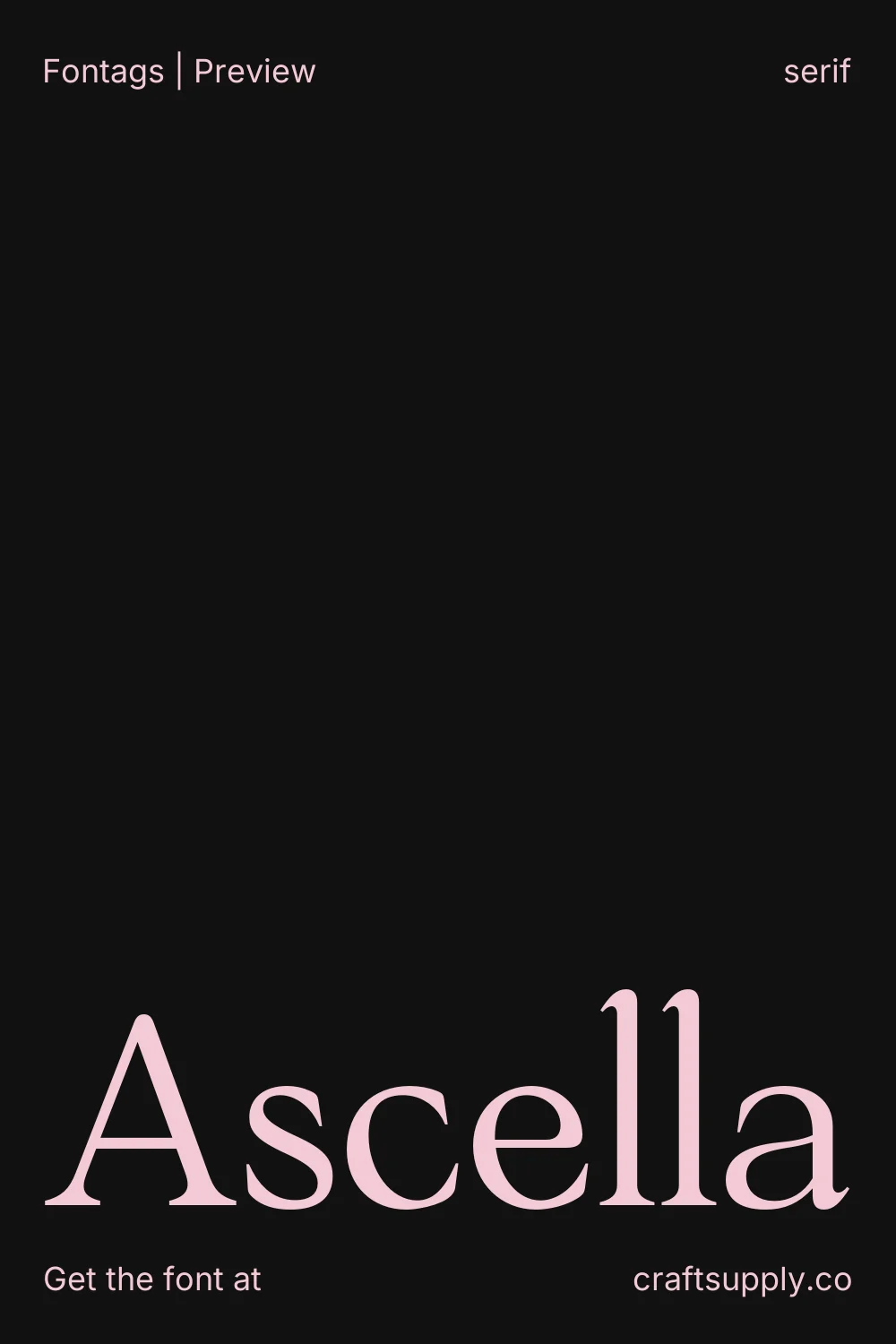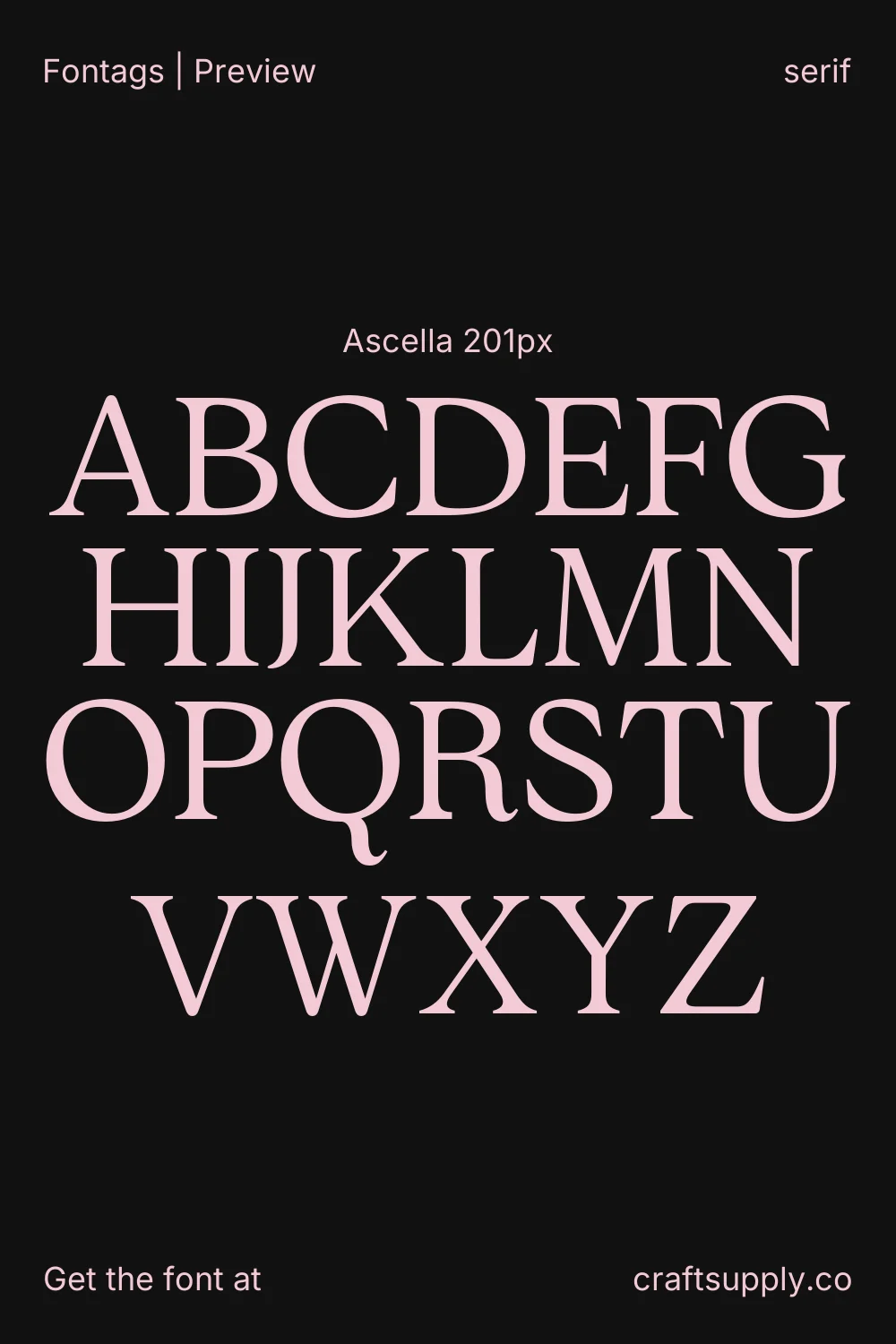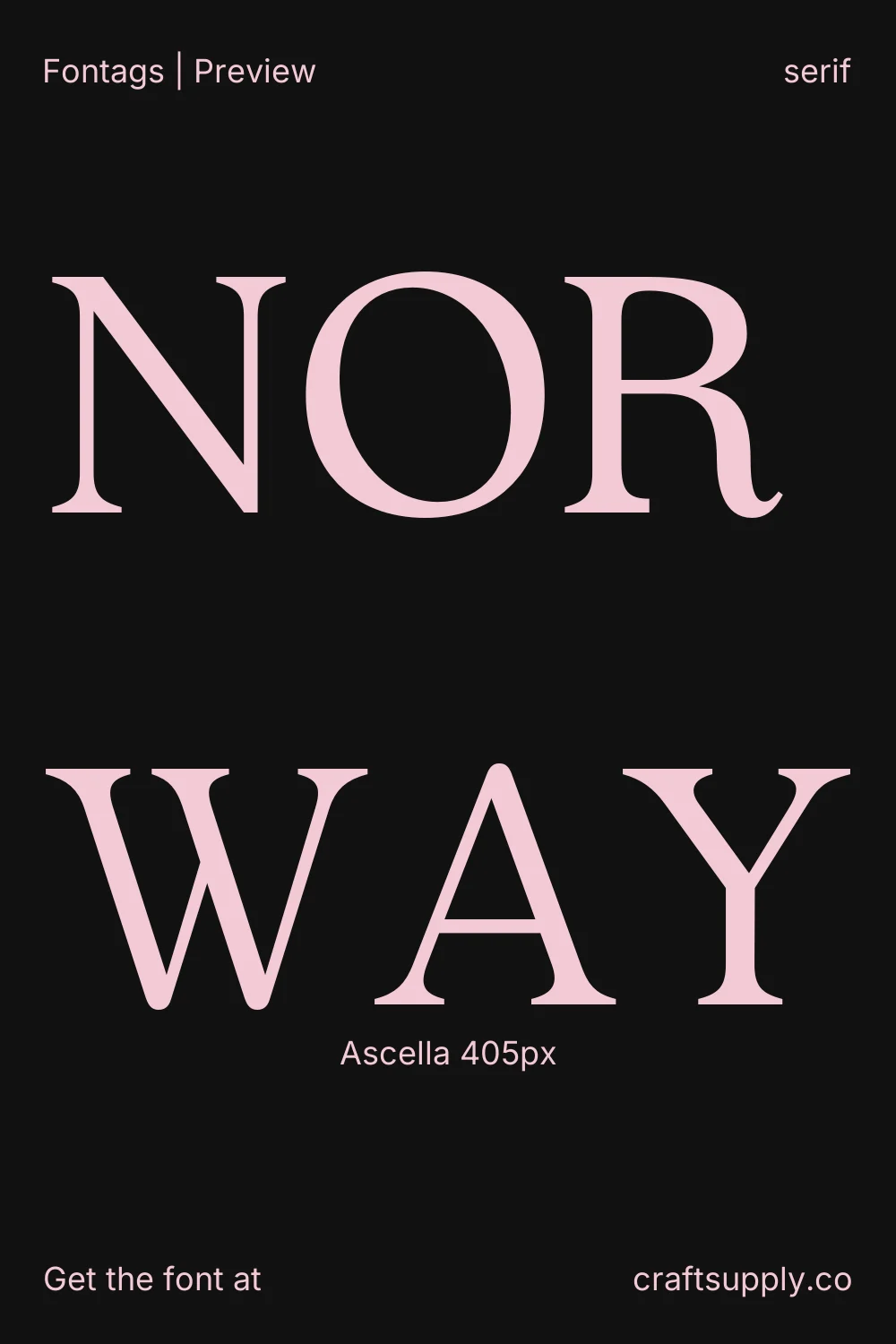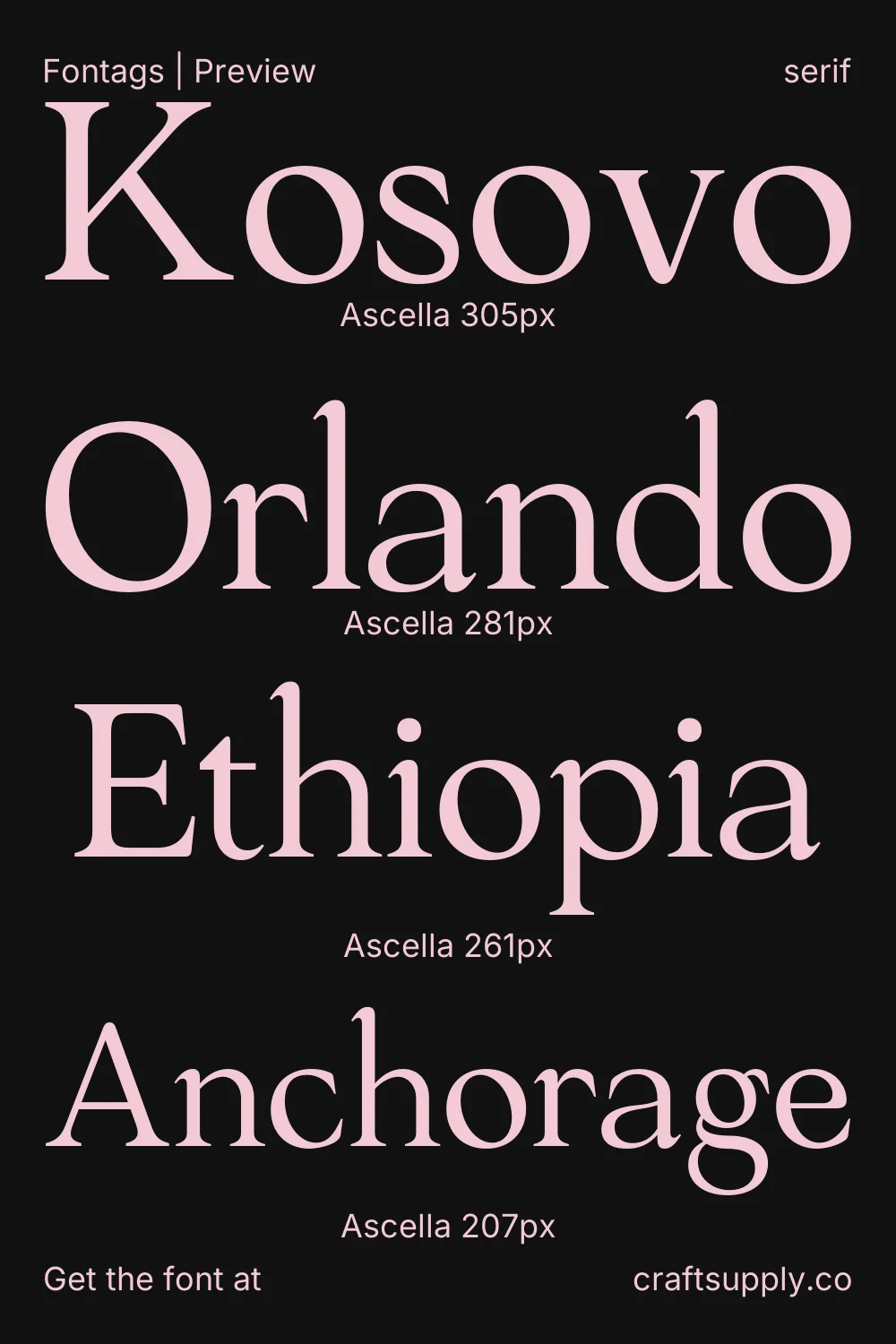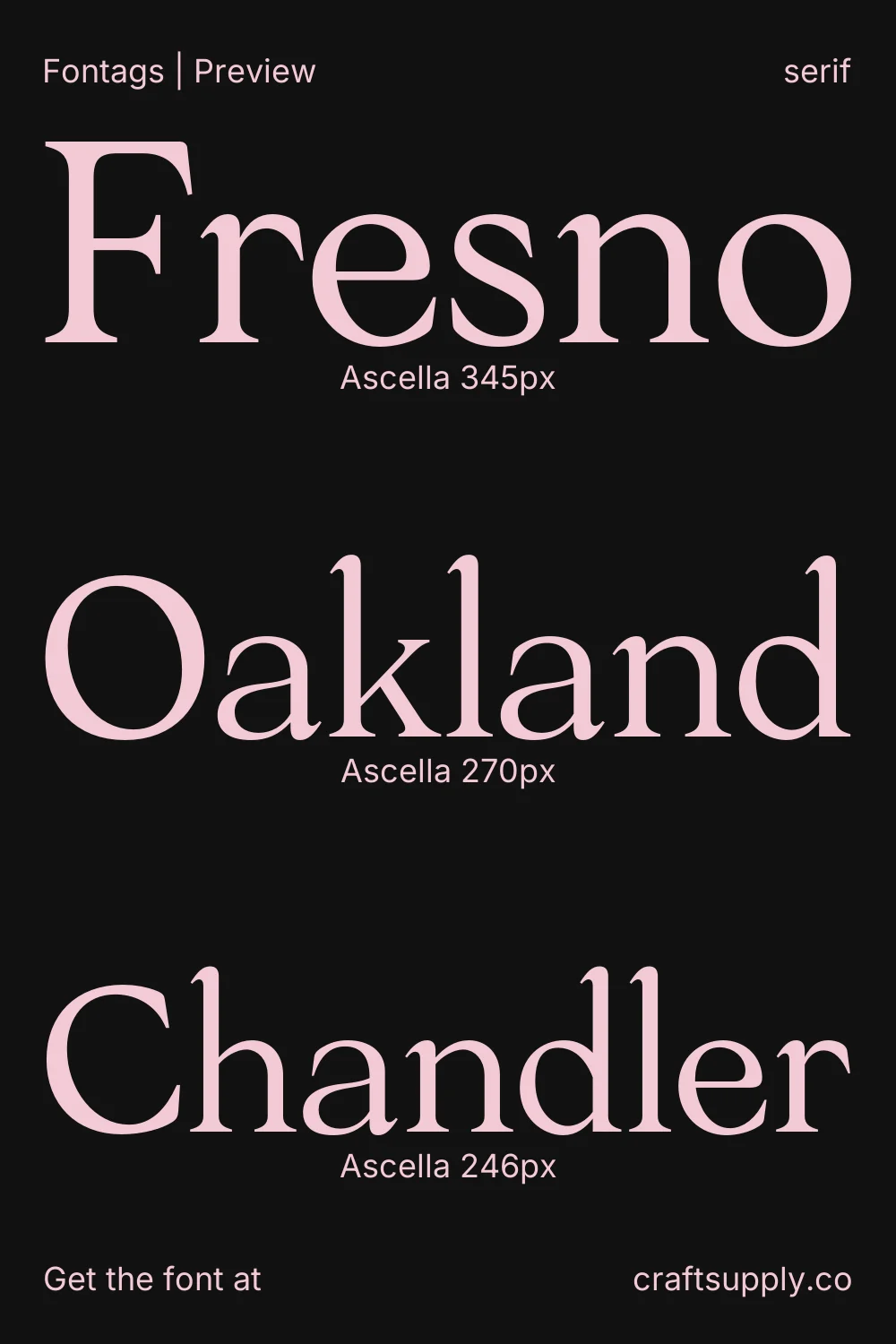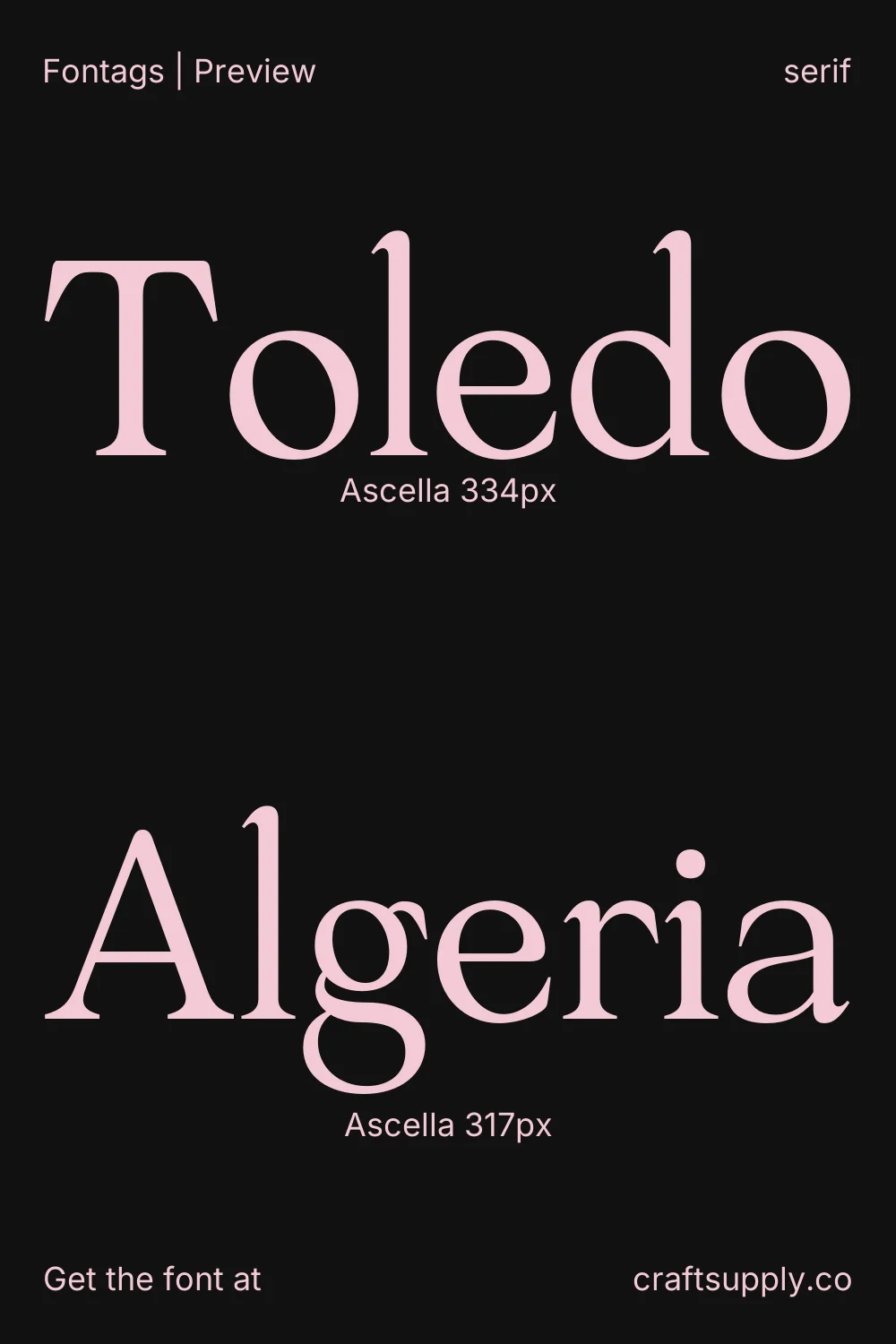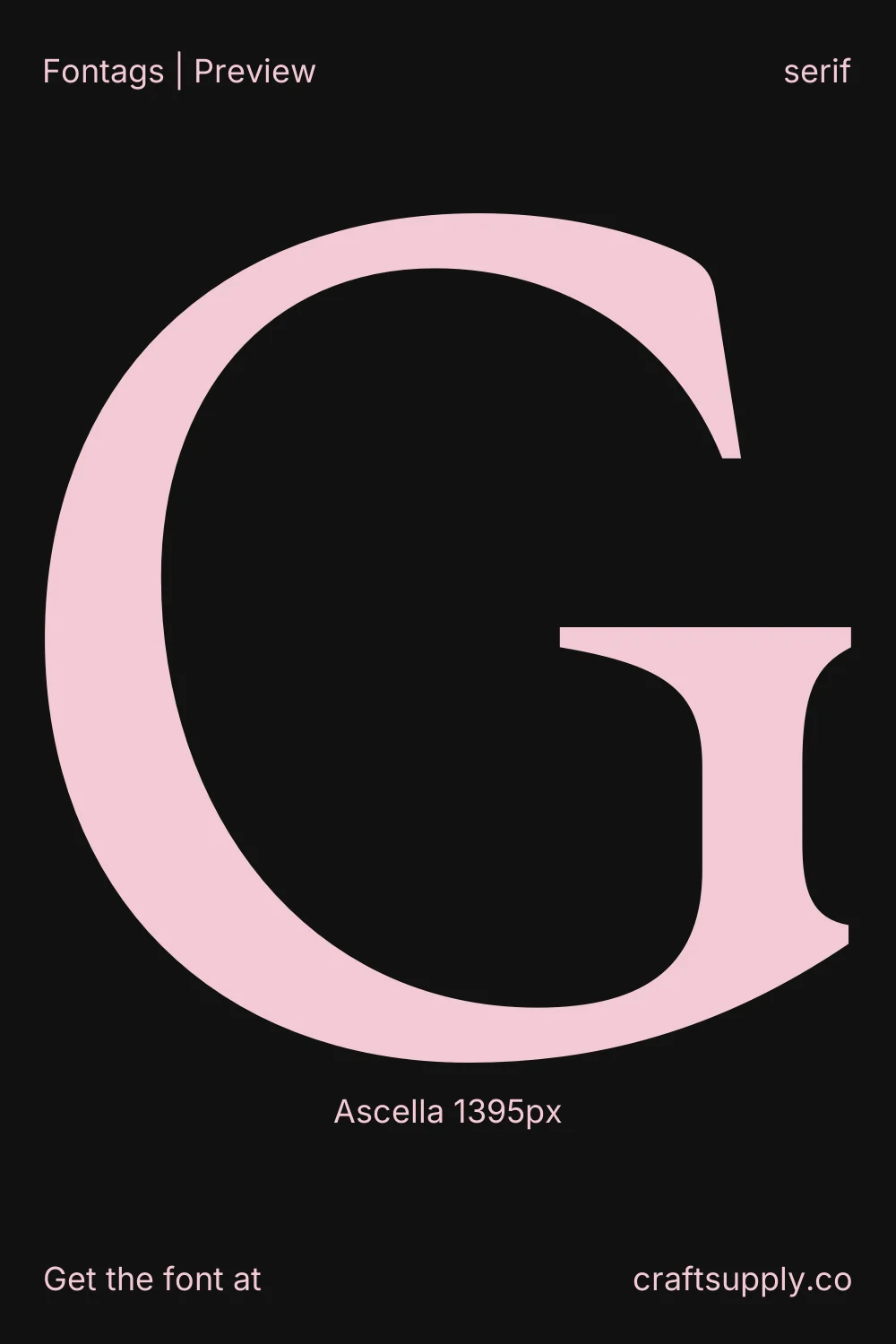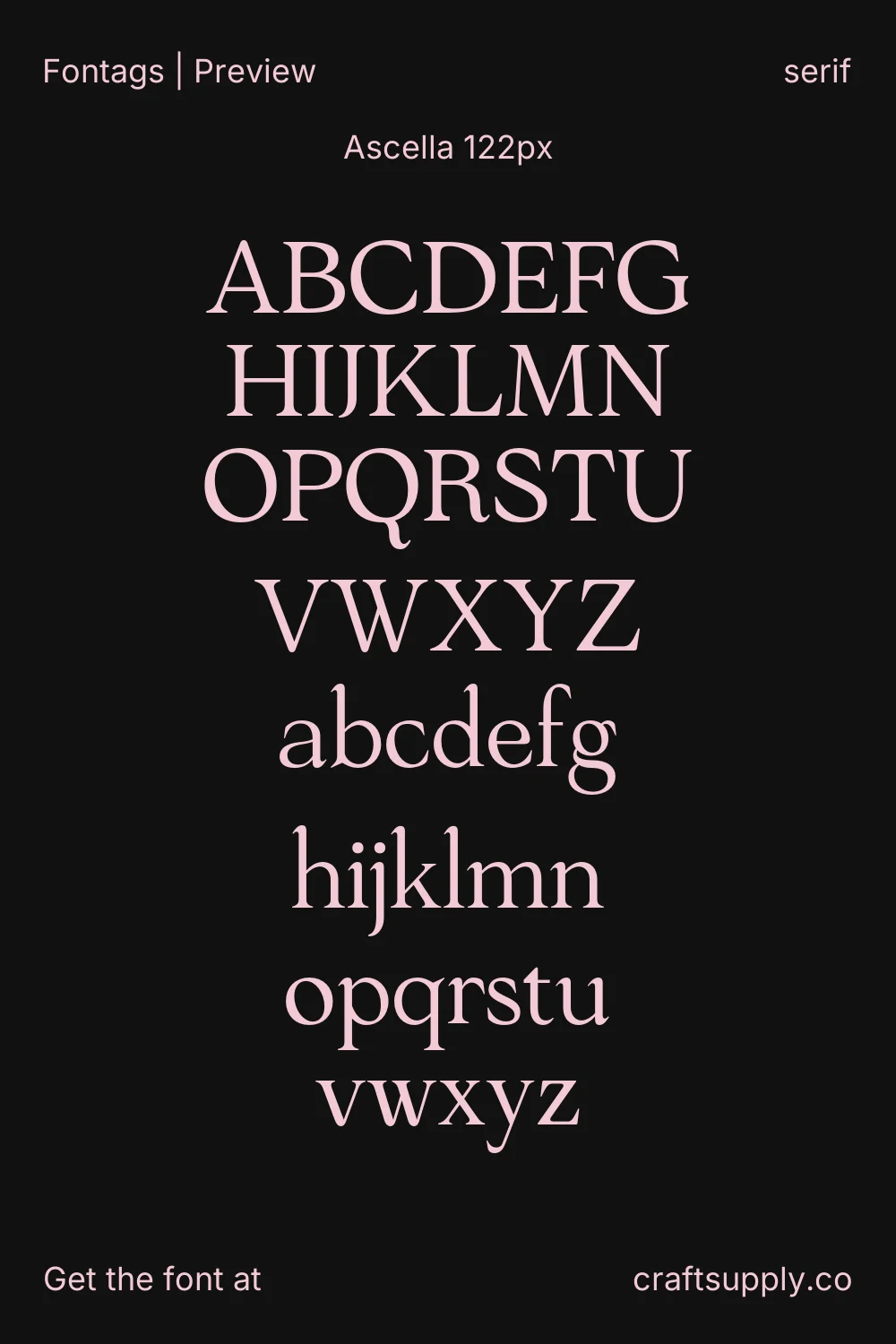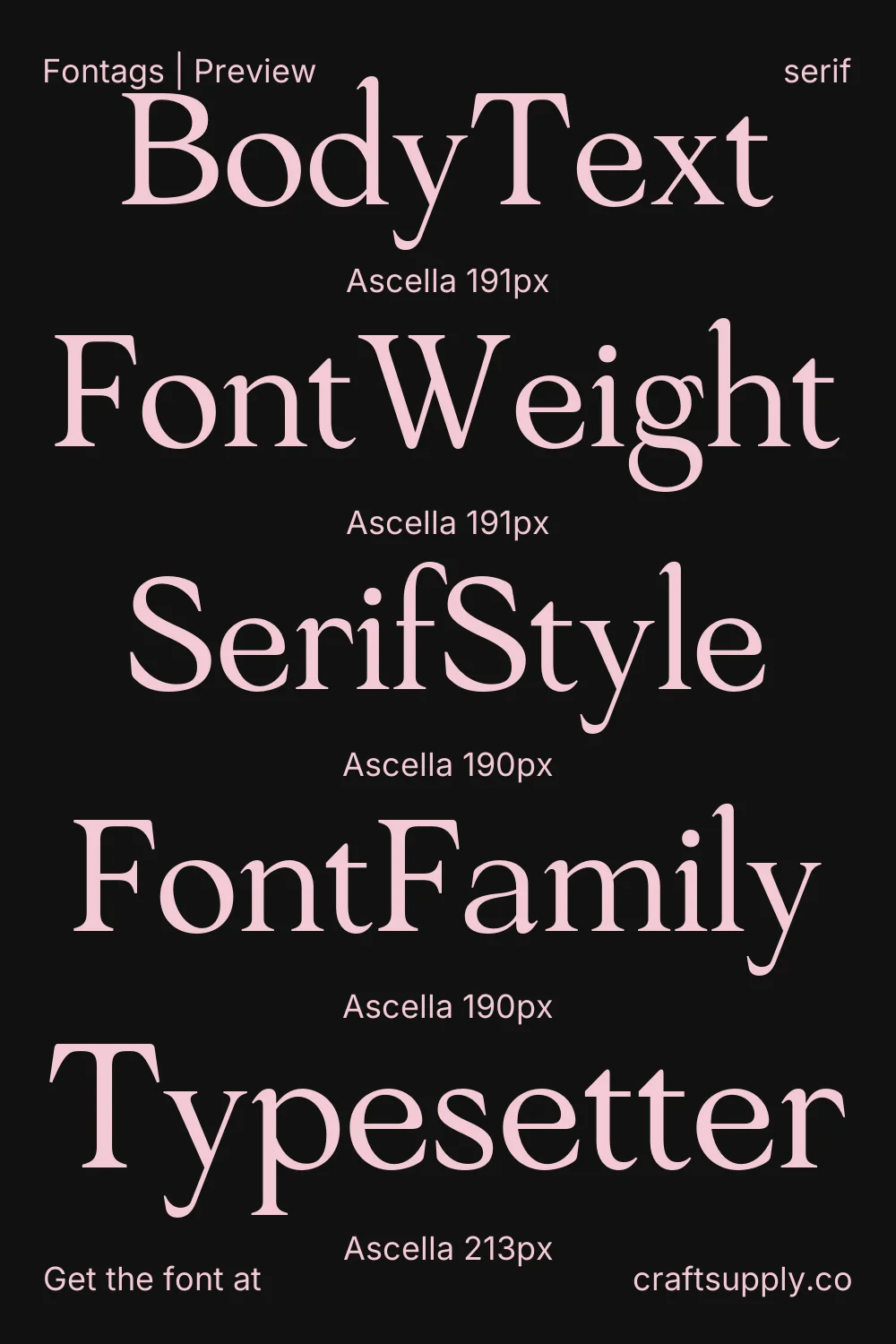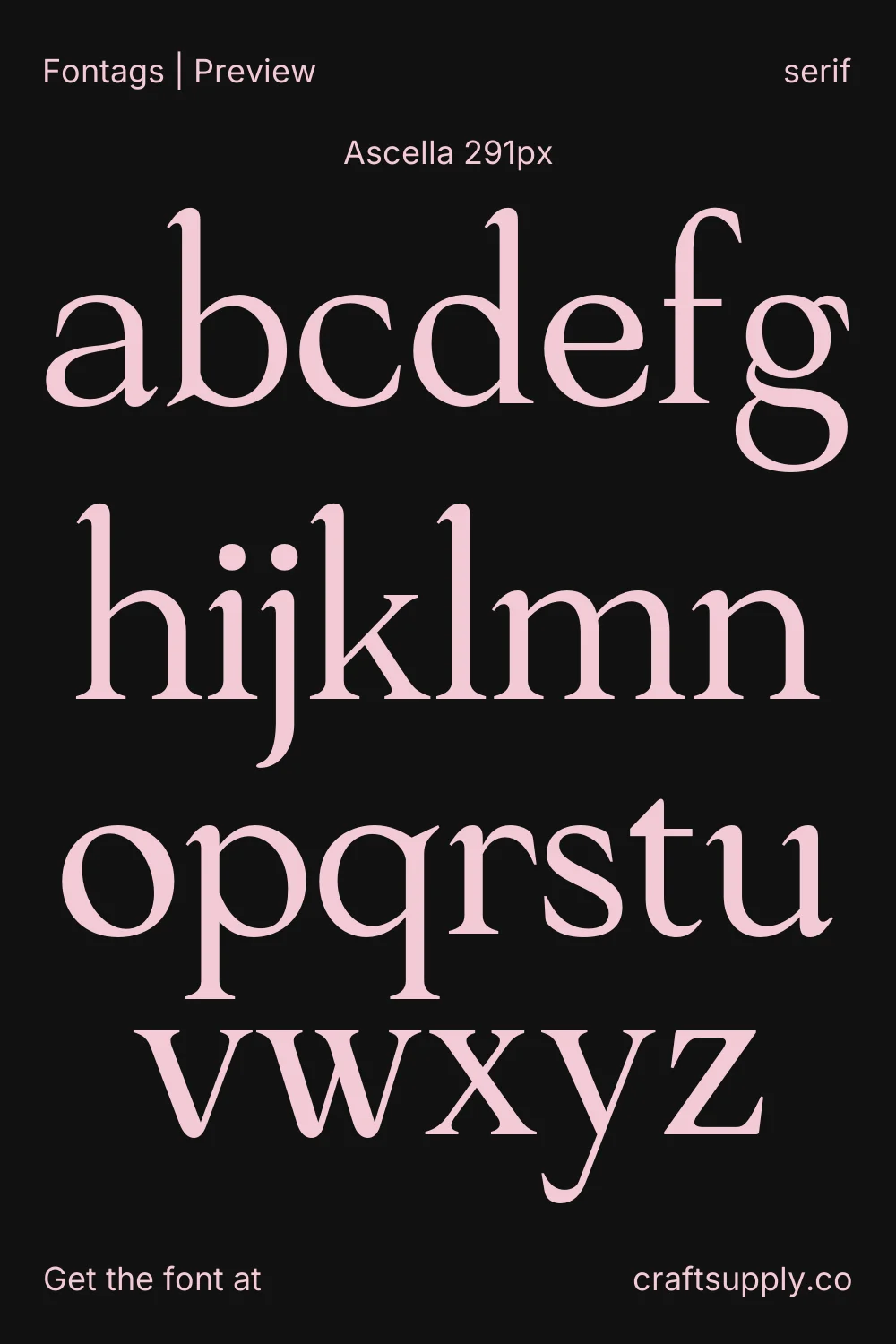
Ascella
Ascella is an elegant modern serif font with sleek lines and refined details. Its clean design offers a sophisticated look perfect for professional branding, editorial projects, and corporate communications. Versatile for both headlines and body text, it adds a touch of elegance to any project.